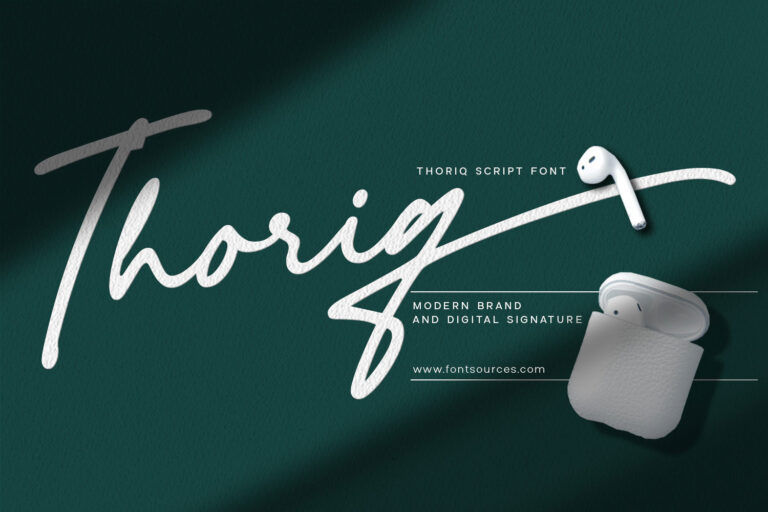
Introducing our new font which is signature style. monoline looks like writing with a ‘Rollerball pen’. We give the name this font “Thoriq”. Thoriq means path, pattern or way. its analogized from the way people write with bold and definite strokes.
The font consists of a lowercase, uppercase and swash with a strong character so it is suitable for use for brand logos, you can print it on t-shirts, cards, posters and other merchandises.
We also created a special font that consists of a beginning and ending swash only, uppercase is a beginning swash while lowercase is an ending swash, this is so that you can easily apply it to online media, such as web banners and digital signatures.
Also equipped with ligatures to add a natural writing impression.
You want to write a quick note or quote, come on… this is the right choice